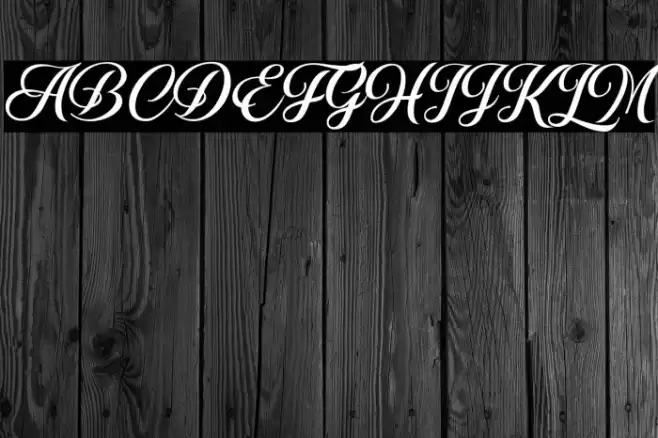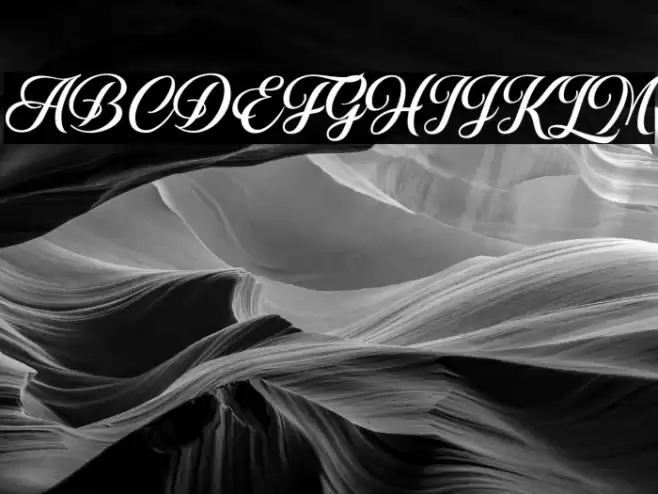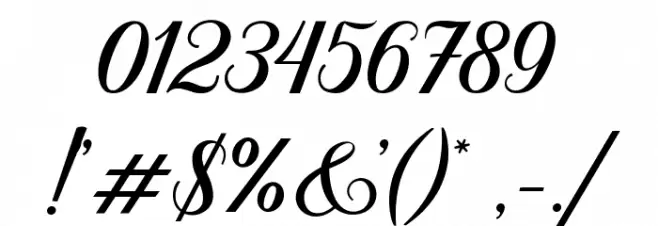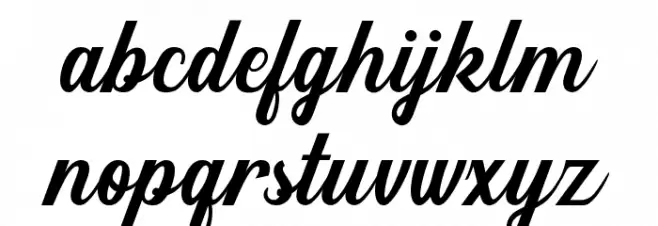
Sunshine Font
Sunshine Description
This elegant script font features a flowing, cursive style with a classic touch. The uppercase letters are intricately designed with sweeping curves and flourishes, giving them a sophisticated appearance. The lowercase letters maintain a smooth, connected flow, enhancing readability while retaining an artistic flair. The numerals are bold and slightly slanted, complementing the overall cursive theme. Special characters are crafted with the same attention to detail, ensuring consistency throughout the font. This font exudes a sense of elegance and tradition, making it suitable for formal invitations, branding, and decorative purposes.
An elegant script font with flowing, cursive letters and classic flourishes from Cartoon fonts.
- Font: Sunshine
- Proposed Projects: Ideal for wedding invitations, luxury branding, greeting cards, and decorative signage.
- Overall Style: Classic
- Use Case: Logos, Invitations, Decorative text
Sunshine UPPERCASE
Sunshine LOWERCASE
Sunshine OTHER CHARS